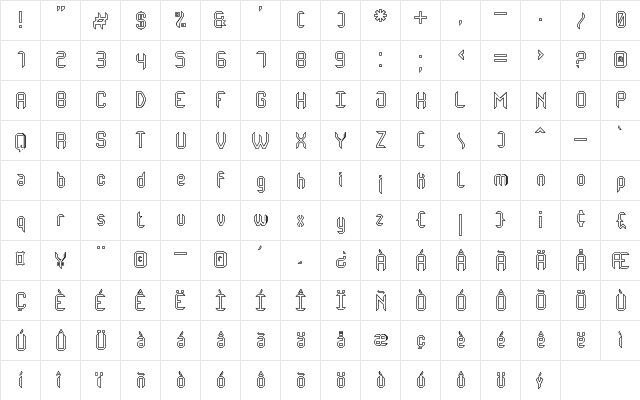
Monster oF South Hollow St Hollow
Design Context for Monster oF South Hollow St Typeface
Monster oF South Hollow St is a composed and adaptable typeface that performs quietly and consistently across a wide range of design contexts.